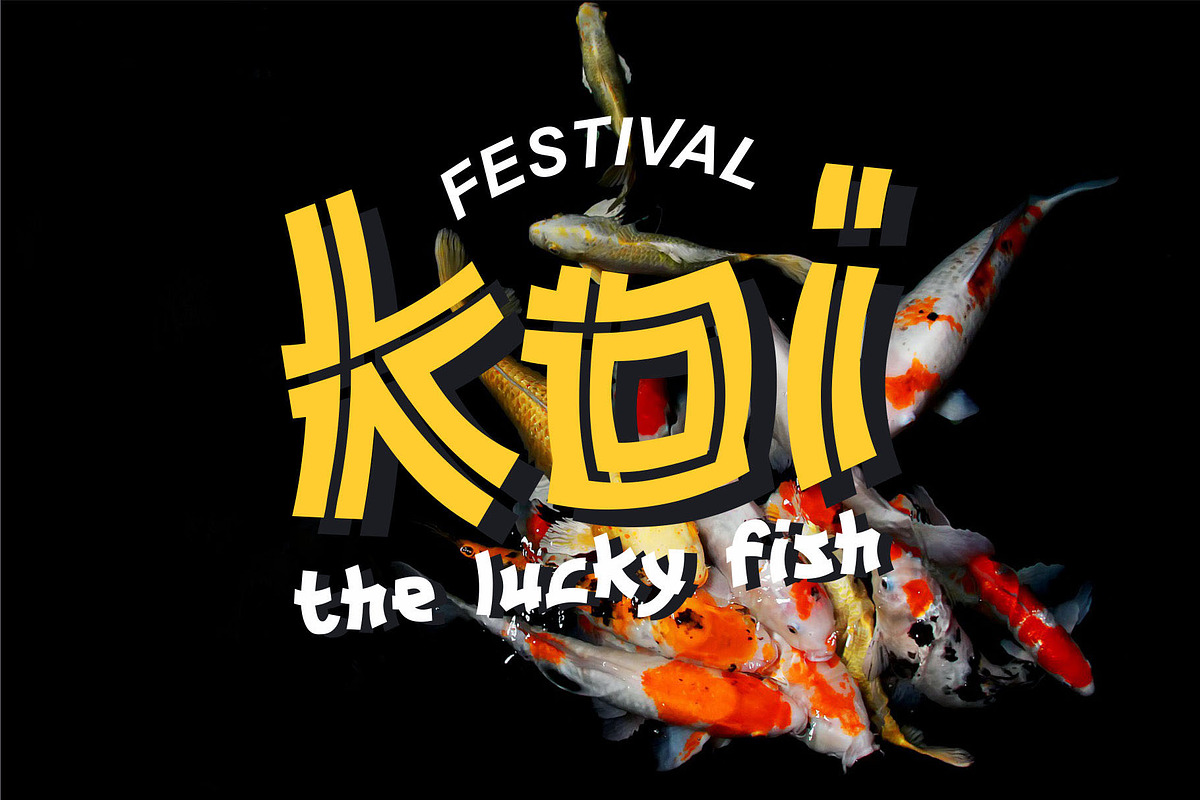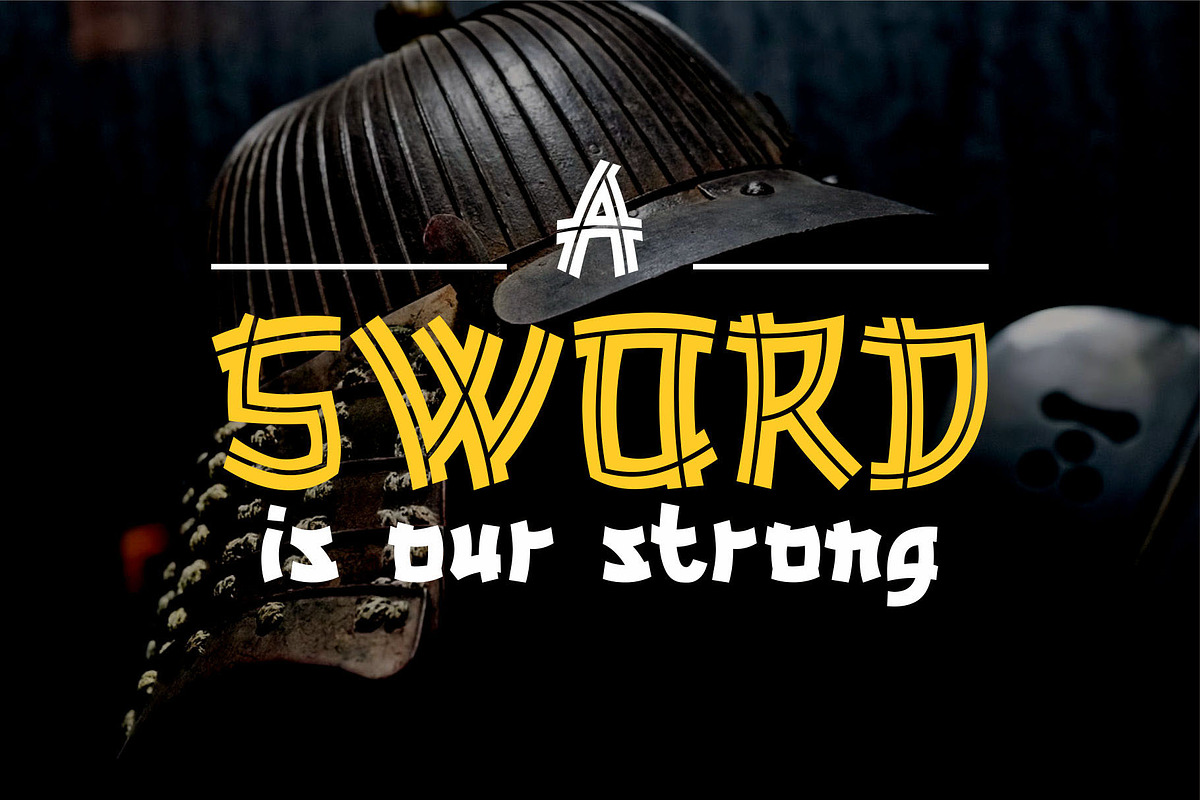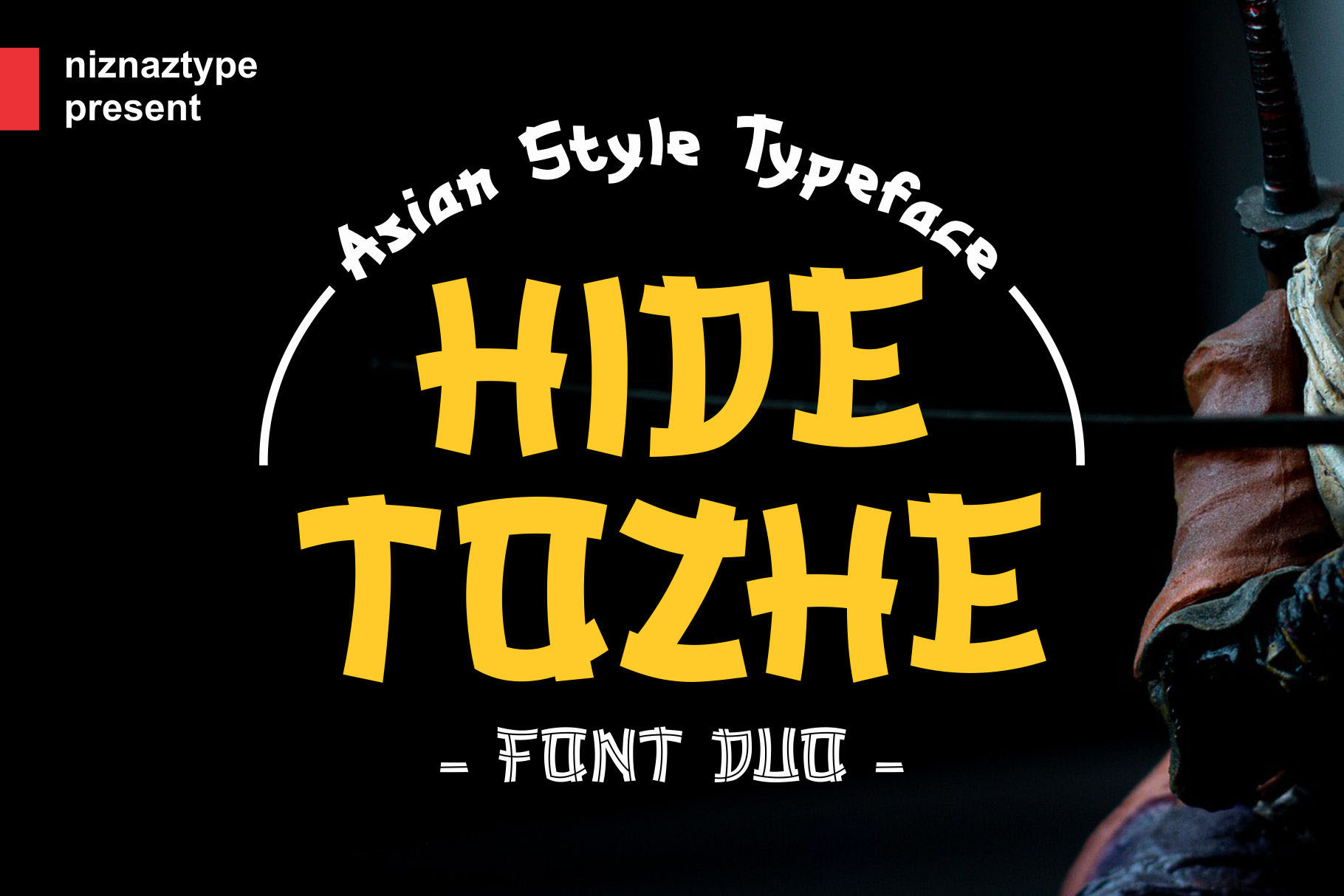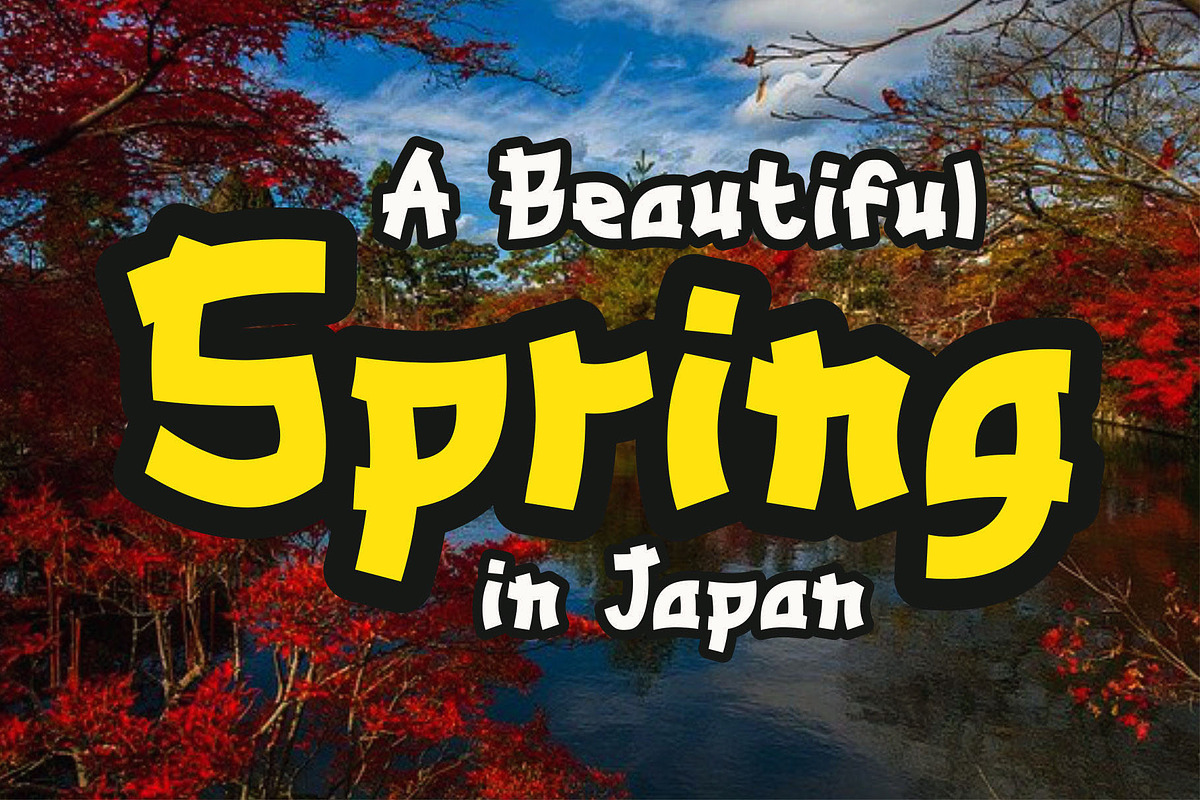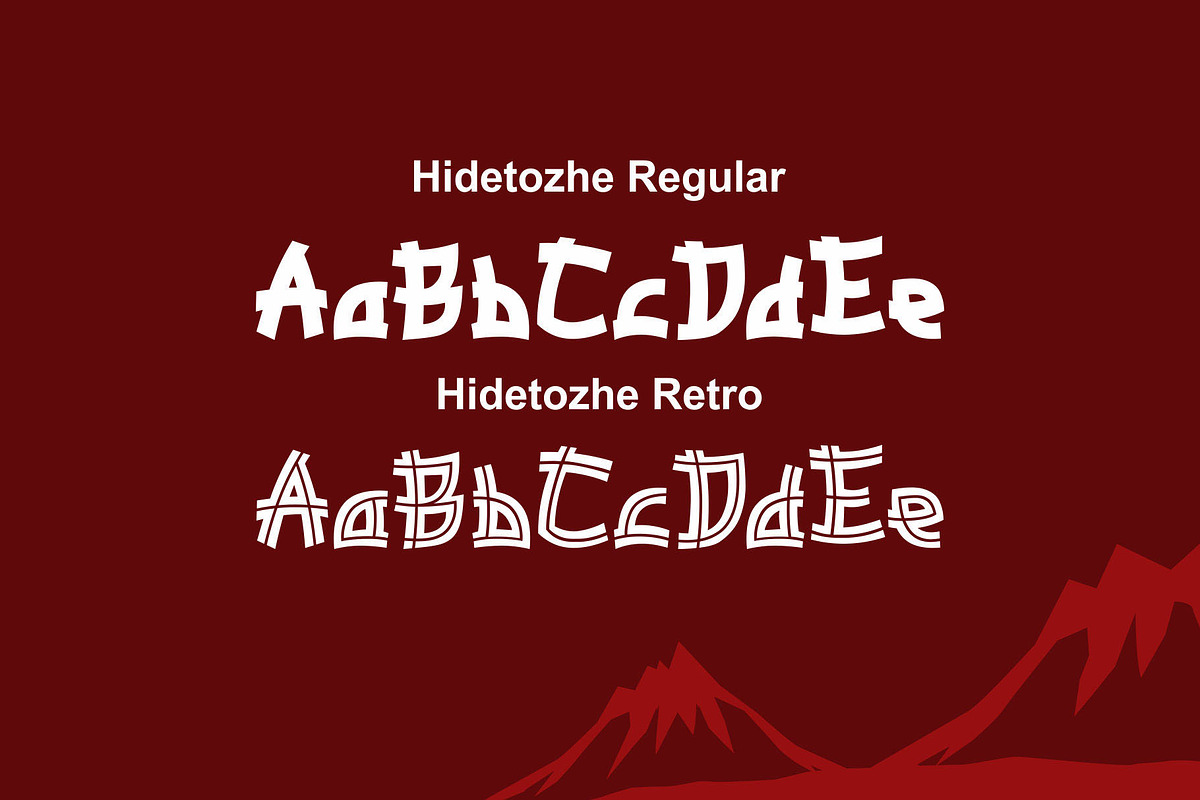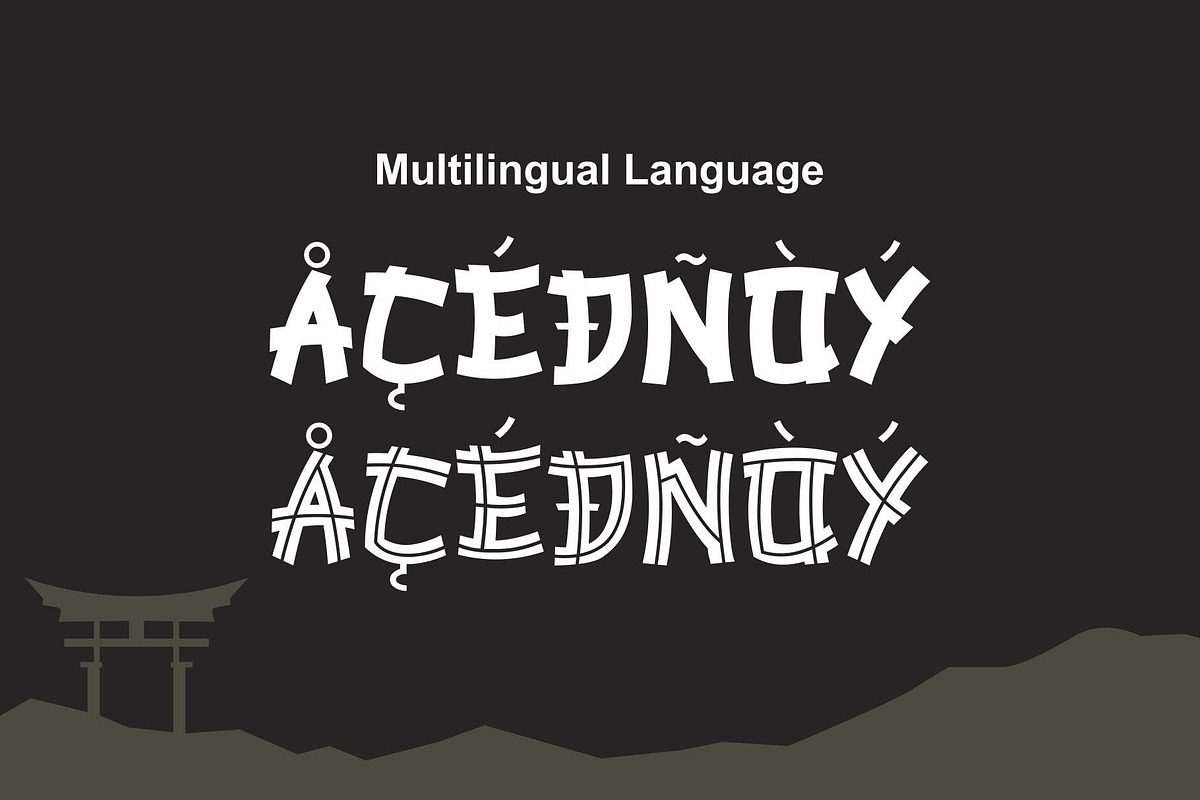
Hidetozhe - Asian Style Font Duo
Hidetozheis a font with asian style character like Chinesse, Korean or Japan lettering. This font very suitable for any advertisement that take Asian style themes. Available in OTF, TTF and WOFF format. Hidetozhe have two font style, regular and retro style. if you have any question, please contact me by email emnazar2009@gmail.com Enjoy with my typeface guys